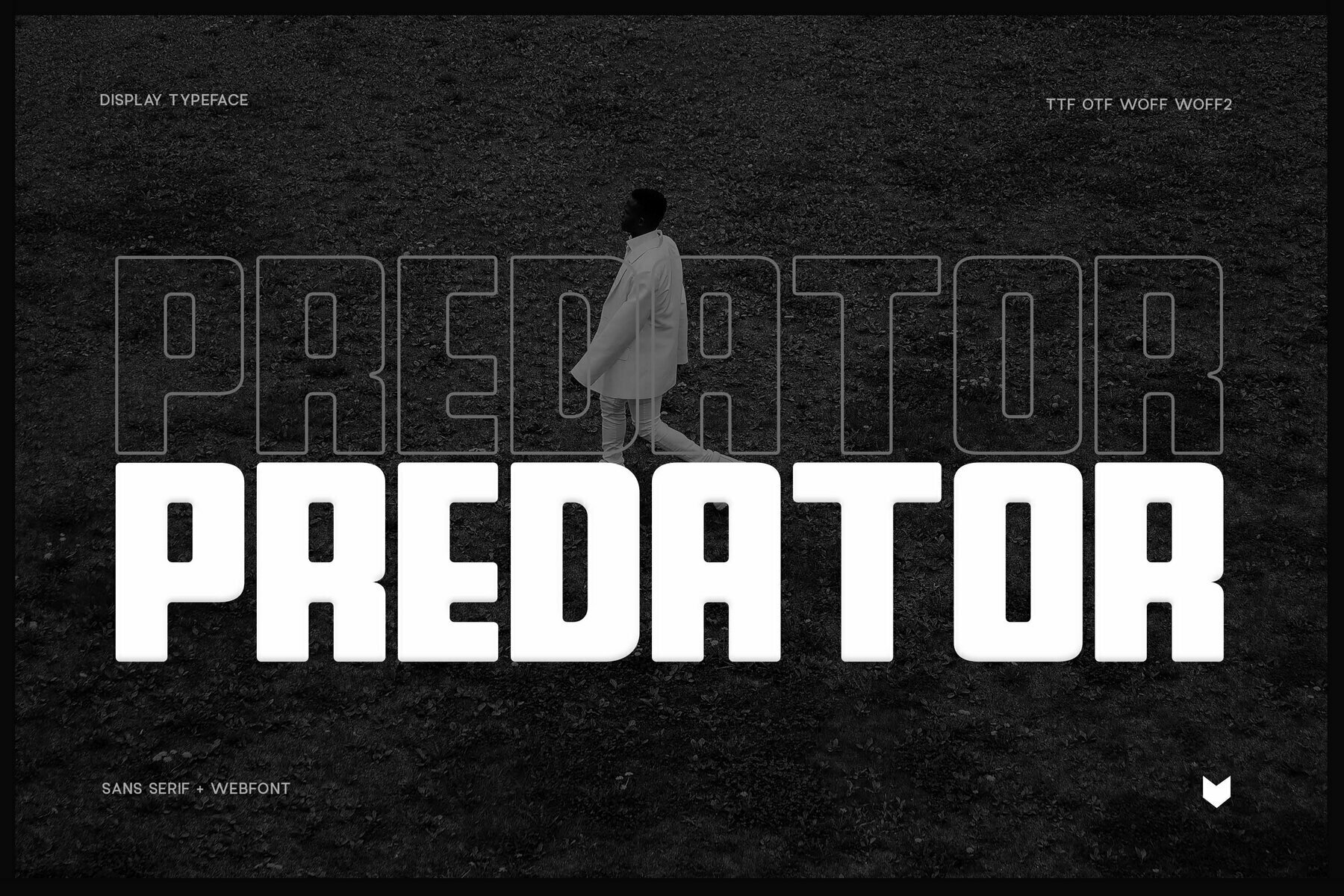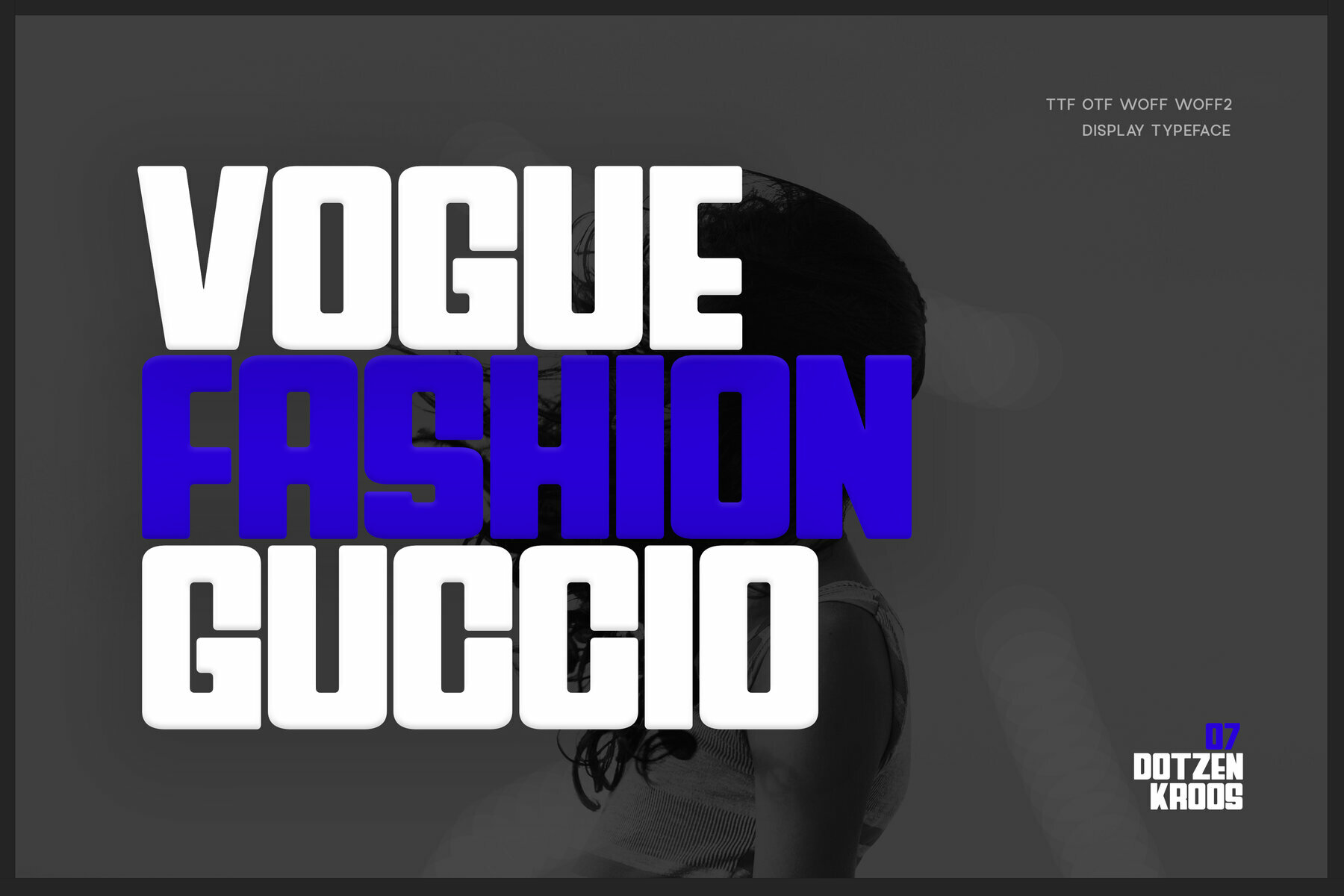
Divock Font
Divock Typeface Regular
Divock Display from FoxType Co embodies a distinctive modern elegance, offering versatility across various design projects. Whether used in large bold headlines or subtle text overlays, its ability to adapt shines in both large and small sizes. Perfectly suited for branding, logos, and captions, this typeface brings a stylish flair to any visual setting.Divock Display: Unique Modern Elegance